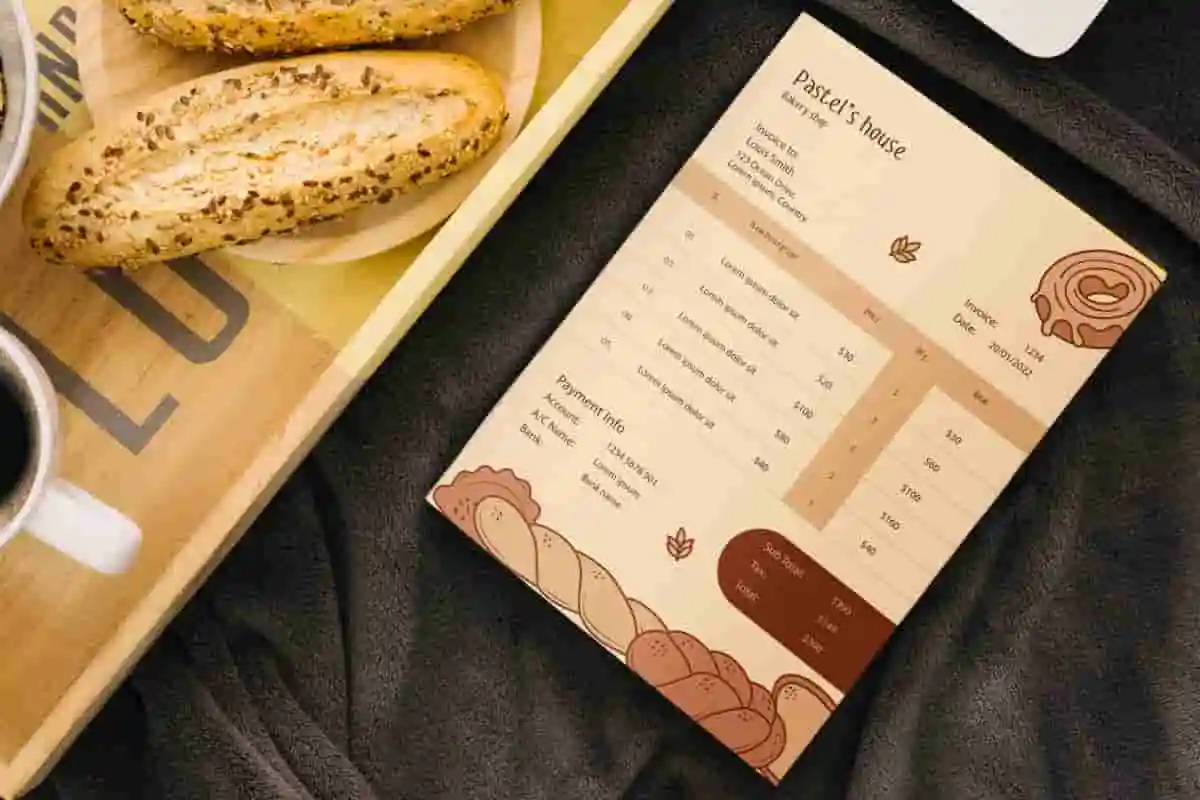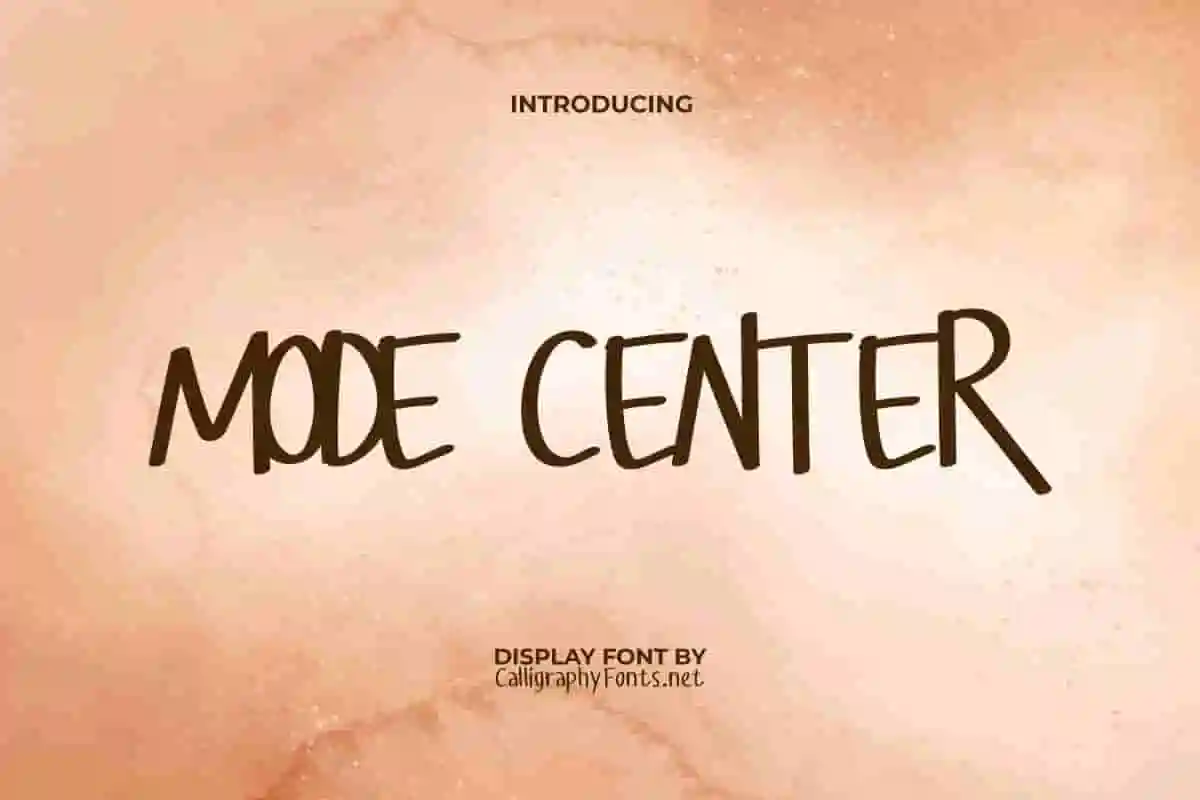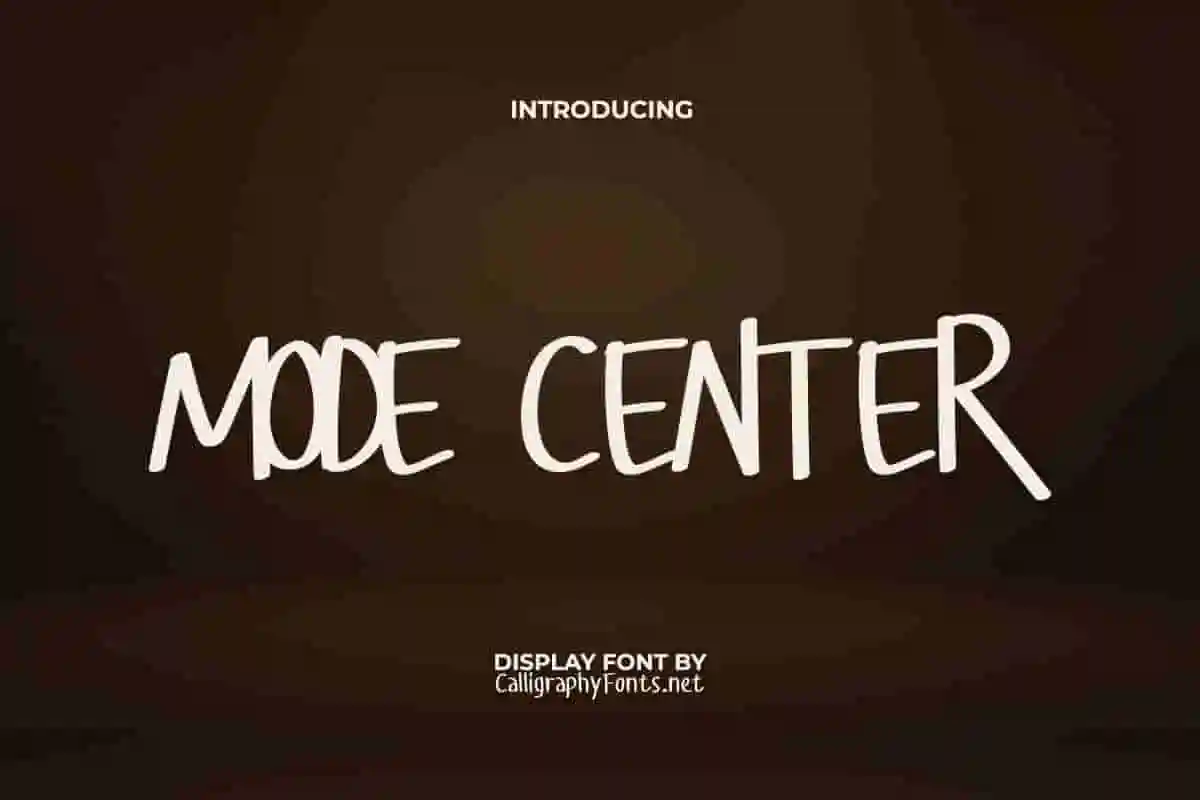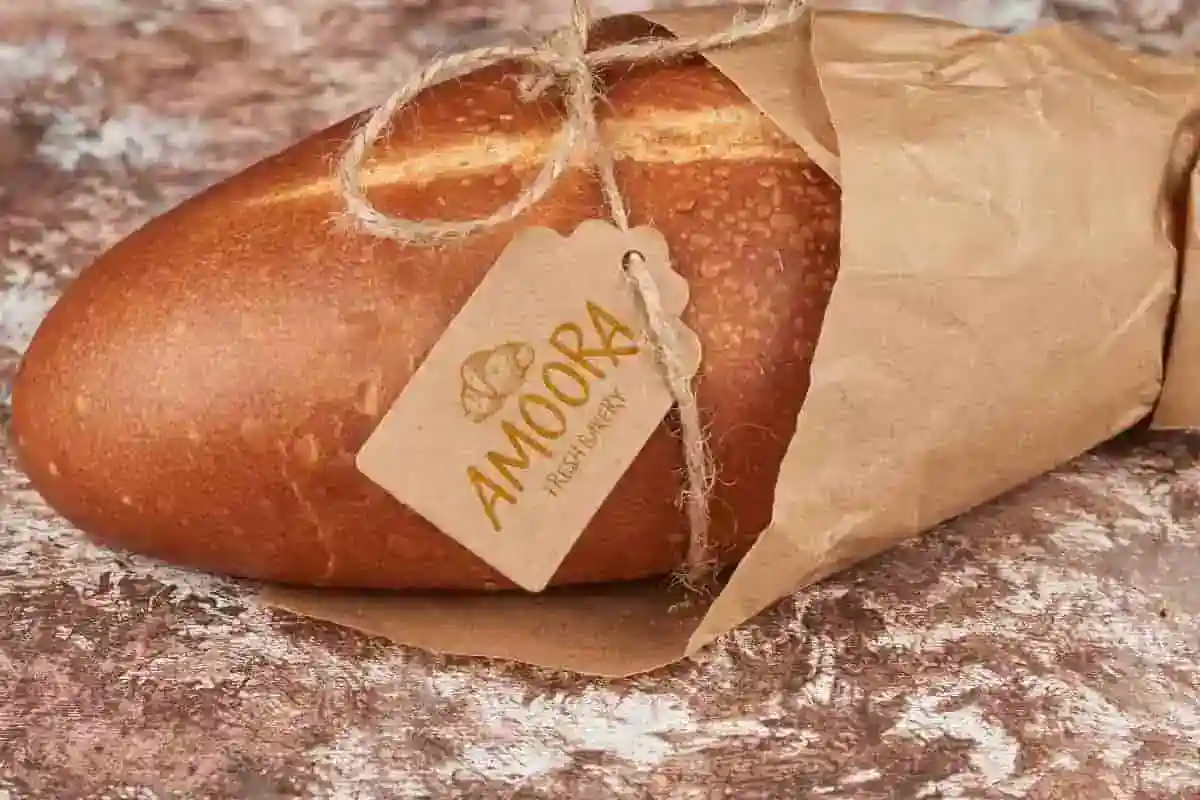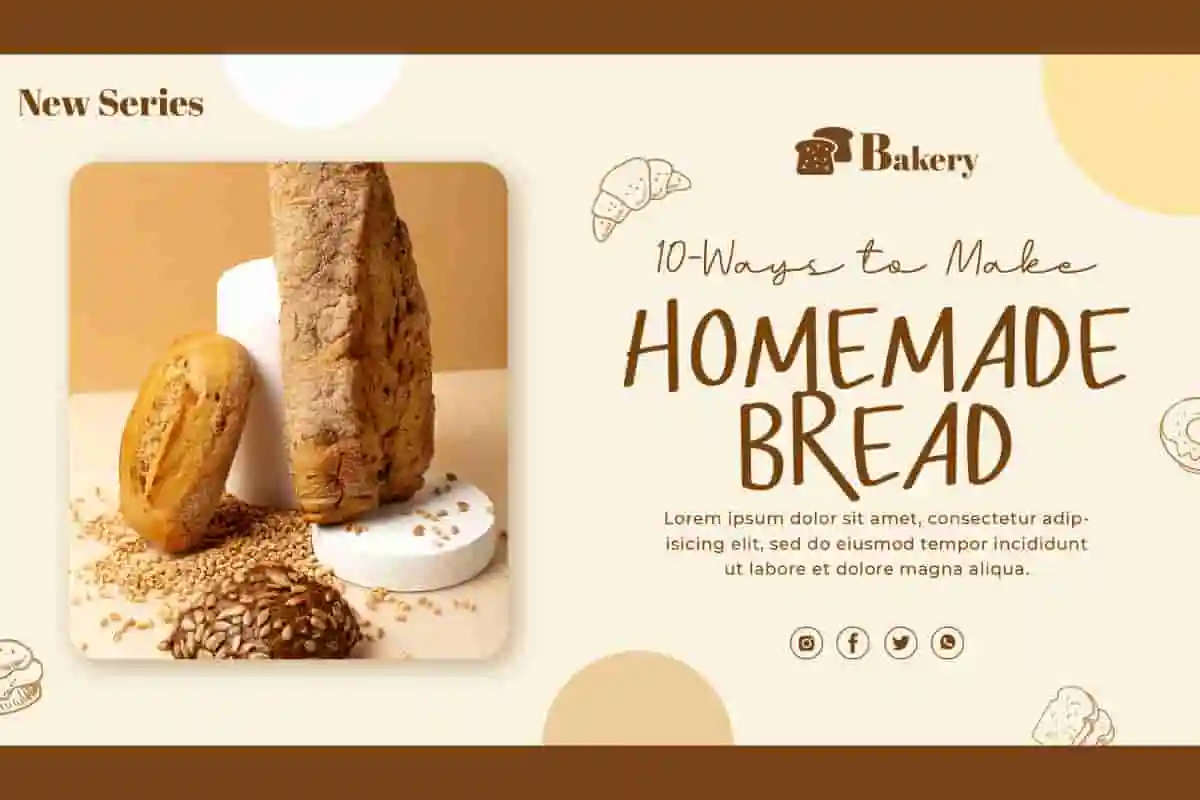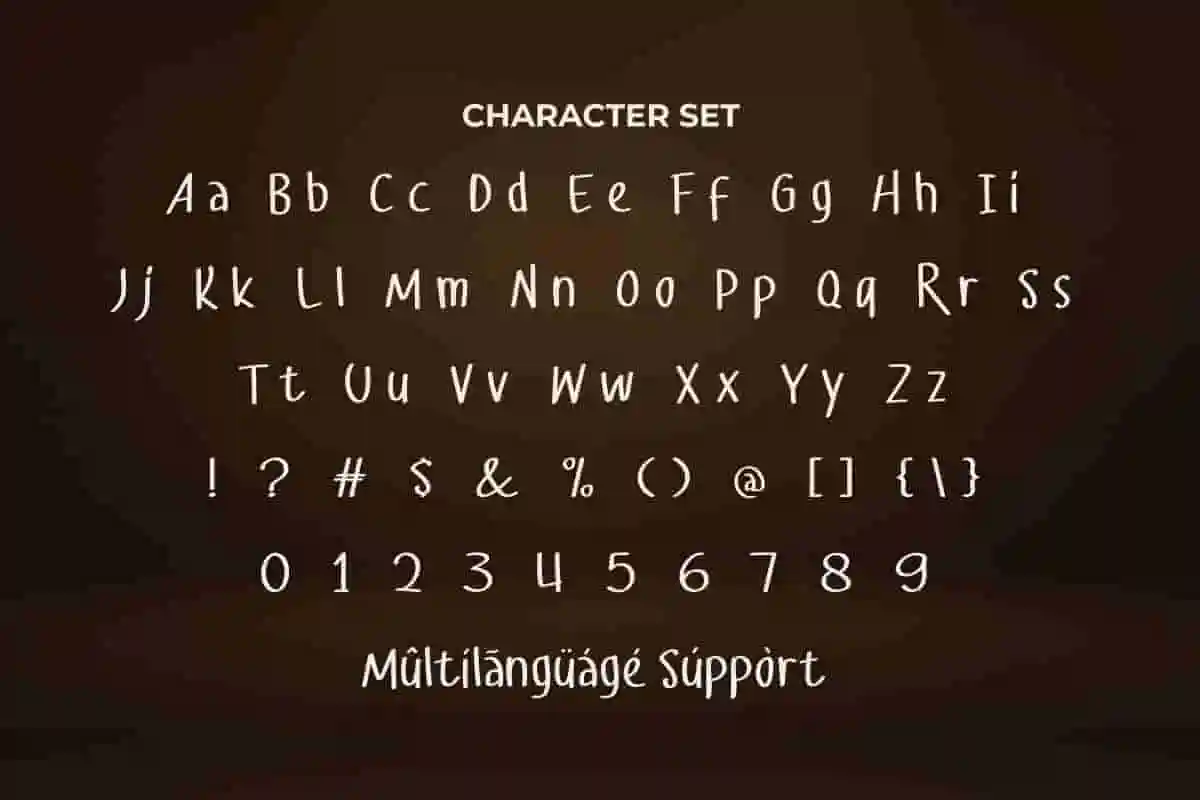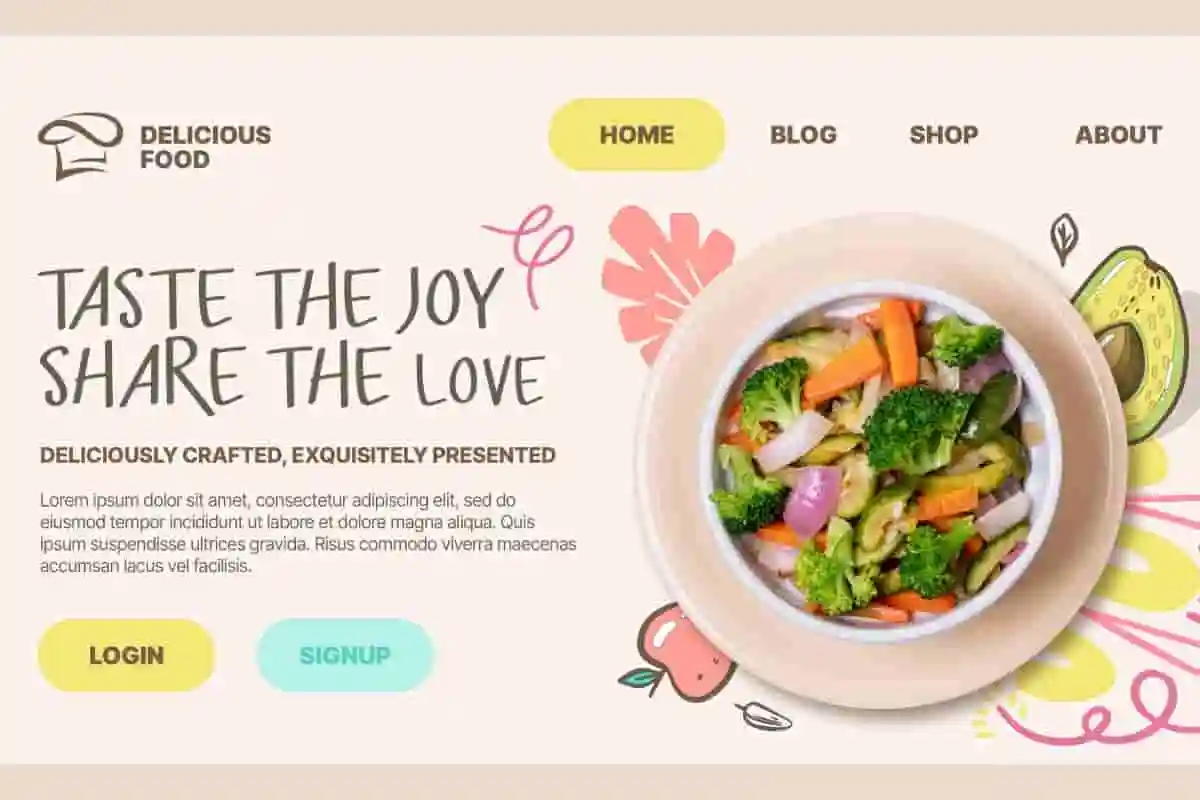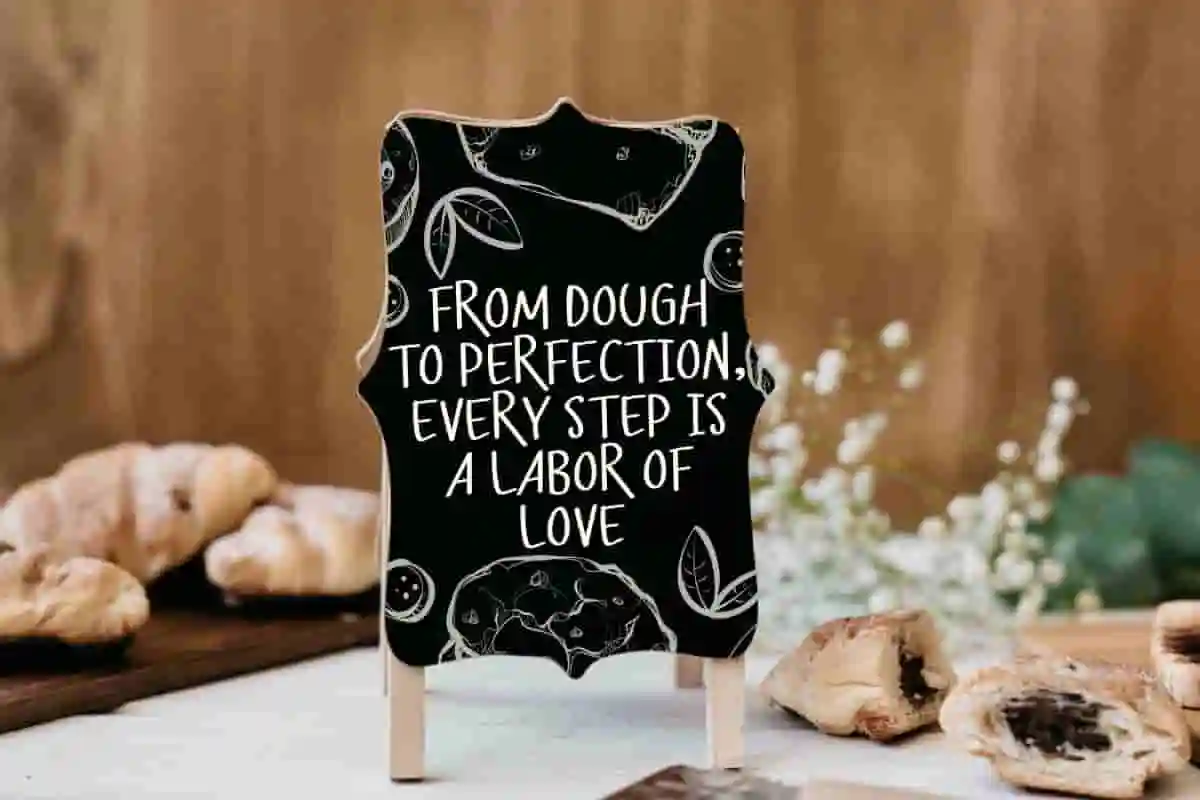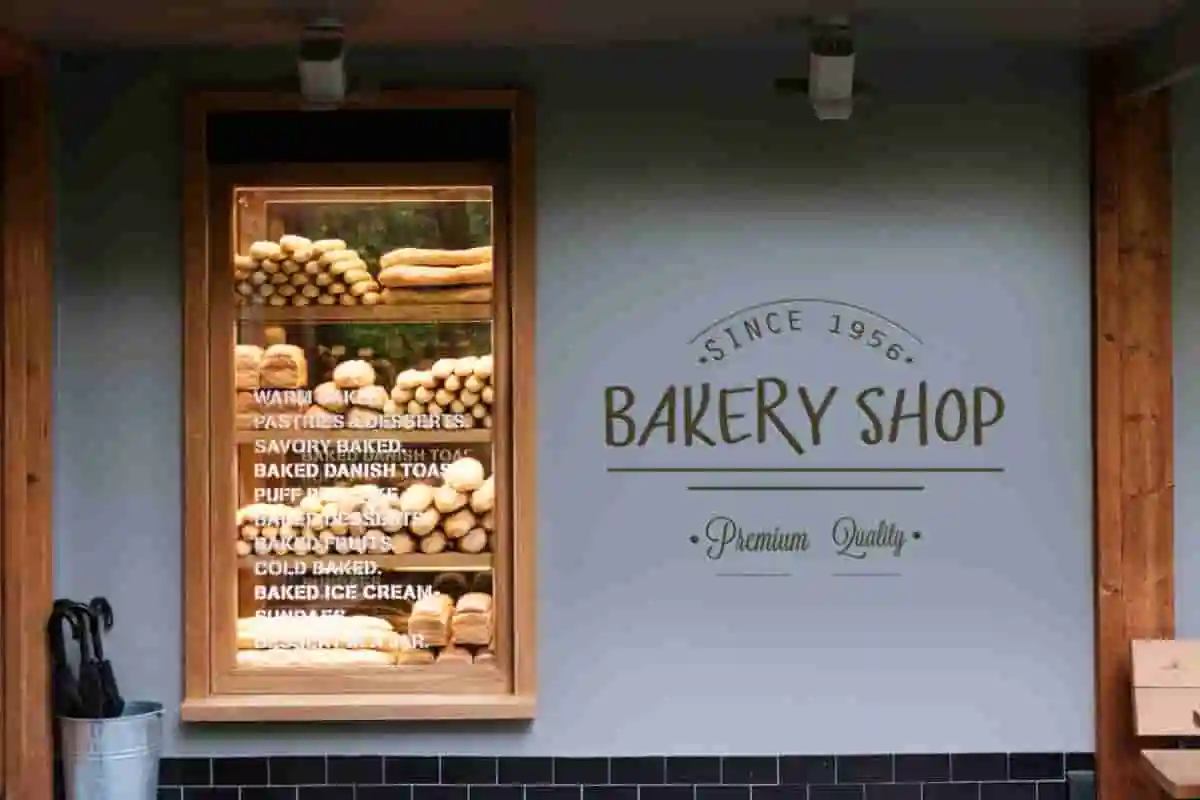
Mode Center Display Font
Mode Center Display Font comes as an expressive handwriting that offers flexibility and charm. Perfect for adding a personal touch to your projects, use this to add a fun and realistic font maker look to your text!
Mode Center Font is a casual and fun lettering look inspired by the natural style of markers. Unleash your creativity with this font as your go-to choice for adding a touch of personality to your written words. Perfect for blogs, brochure, covers, flyer, greeting cards, headers, headline, invitation, label tag, logos, menu, mockup, poster, printed materials, quotes, signage, social media design post, stationery, sticker, template, title, wall art, watermark, website, and more.
Step into the world of style and innovation with Mode Center Display Font, a modern typeface designed to capture attention and elevate any project. With its sleek lines, balanced proportions, and bold personality, this display font delivers the perfect blend of contemporary design and strong visual impact.
Ideal for logos, posters, fashion branding, magazine covers, packaging, social media graphics, headlines, and event promotions, Mode Center Display Font brings a professional yet stylish look to your designs. Its unique letterforms are versatile enough to work in both minimalist and high-impact layouts, making it a must-have for designers seeking modern elegance.
Every character has been carefully crafted to maintain readability while showcasing creative flair. Whether used in large-scale print, digital campaigns, or eye-catching product branding, this font ensures your message stands out with clarity and sophistication.
In today’s fast-paced creative landscape, typography is more than design—it’s identity. Mode Center Display Font helps your brand, artwork, or message express confidence and modern style, leaving a lasting impression on your audience.
Mode Center Display Font has natural letter edges with realistic shapes. Perfect for anything that needs a handmade font that’s friendly and full of fun. The carefully crafted characters make it an ideal companion to ensure your ideas come across and are visually appealing. Useful for accessories and gift, advertising, bakery, cafes, film, graphic designer, handicraft, pastry chef, photography, publisher, restaurants, and many more.